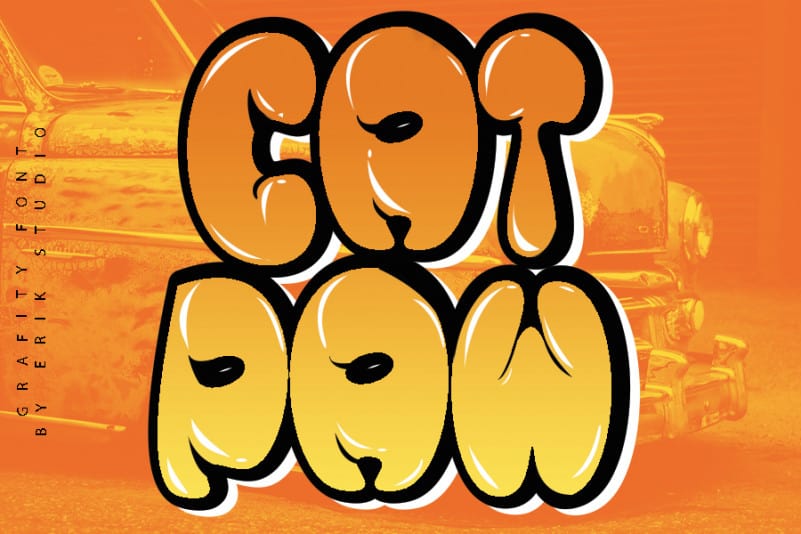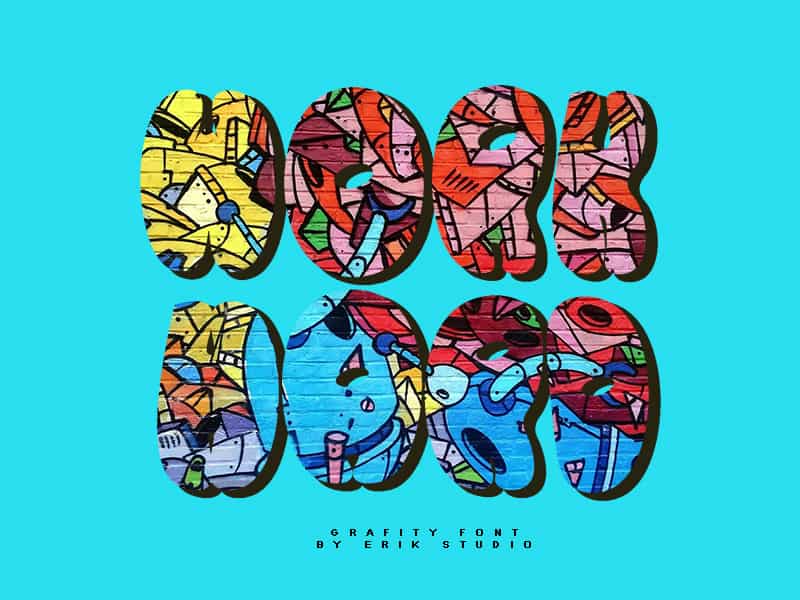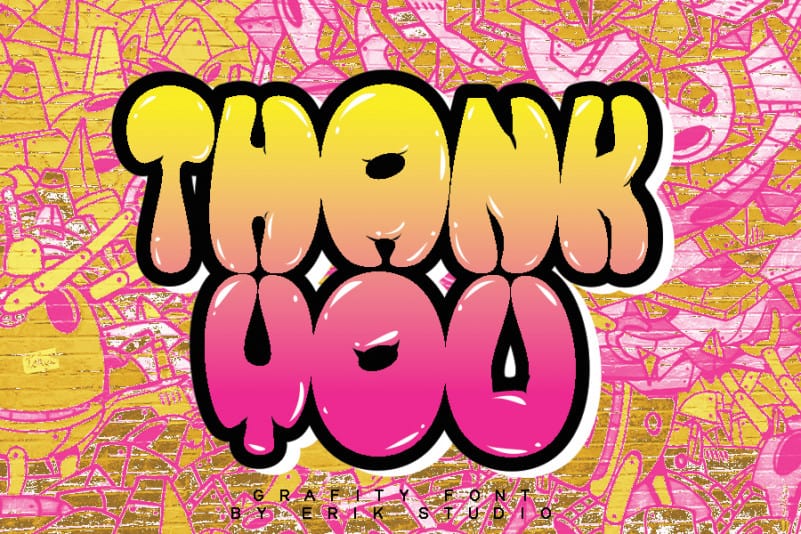
Donut Display Font
Donut Display Font is a cute and incredibly childish display font. It embodies playfulness and authenticity and is the perfect choice for any project that requires a joyful touch.
Erik Studio